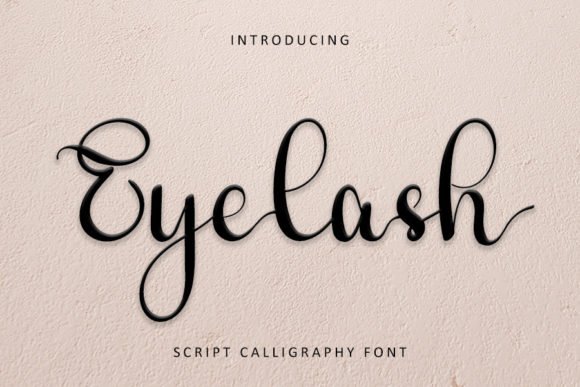
Unlocking the Power of Whimsical Typography
There’s something magical about sitting down with a pen and paper, watching your ideas come to life in a flurry of scribbles and sketches. The thrill of bringing a concept to reality is what drives creatives to push the boundaries of design. And what better way to enhance your projects than with a font that exudes elegance and sophistication?
Meet Eyelash Font, a stylish handwritten font that embodies the essence of timeless classic calligraphy. With its balanced and varied form, Eyelash Font is the perfect addition to any designer’s toolkit. Whether you’re working on a luxury brand, a wedding invitation, or a digital campaign, Eyelash Font adds a touch of whimsy and sophistication that’s sure to elevate your design. By incorporating this versatile font into your workflow, you’ll be able to tap into a world of creative possibilities and bring your vision to life.
Eyelash Font Key Features
- Unique Characteristic: Eyelash Font is a handwritten, cursive font designed to resemble eyelashes, making it perfect for creative and whimsical designs.
Designer Review: Eyelash Font
Overall, I have mixed feelings about Eyelash Font. On the one hand, it’s a unique and attention-grabbing typeface that’s perfect for adding a touch of whimsy to designs. ✨ Its playful, hand-drawn aesthetic makes it a great fit for illustrations, invitations, and other creative projects.
- The font’s irregularities and imperfections give it a charming, human touch.
- Eyelash Font is well-suited for digital and print applications, and it’s easy to read even at small sizes.
- The font’s versatility makes it a great choice for designers who want to add a little extra flair to their work.
On the other hand, I have some concerns about Eyelash Font’s limitations. ⚠️ While it’s a great choice for creative projects, it may not be the best option for professional or formal designs. The font’s informal, hand-drawn feel may not be suitable for corporate branding or other situations where a more polished look is required.
Overall, I think Eyelash Font is a fun and versatile typeface that’s worth adding to your design toolkit. While it may not be suitable for every project, it’s a great choice for designers who want to add a little extra personality to their work.
- Use the font’s unique features, such as the curly and swirly elements, to create a decorative and eye-catching effect.
- Use the font’s unique features to add a touch of elegance and sophistication to your design.
Some tips for getting the most out of Eyelash Font include:
- Using it sparingly to add a touch of whimsy and personality to your design.
- Pairing it with other decorative fonts to create a unique and eye-catching effect.
- Using it in titles and headings to add a touch of elegance and sophistication.
Common use cases for Eyelash Font include:
- Wedding invitations and decorations.
- Party and event invitations.
Projects Using Eyelash Font
Create unique and eye-catching wedding invitations using the Eyelash Font. The whimsical and elegant feel of the font makes it perfect for wedding invitations.
Project 2: Fashion Blog Header
Use the Eyelash Font to create a bold and eye-catching header for a fashion blog. The font’s elegant and feminine feel is perfect for a fashion blog.